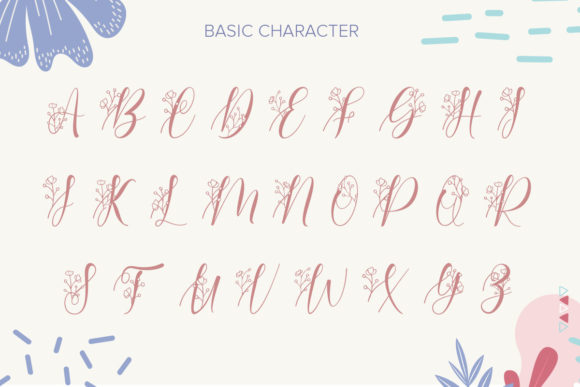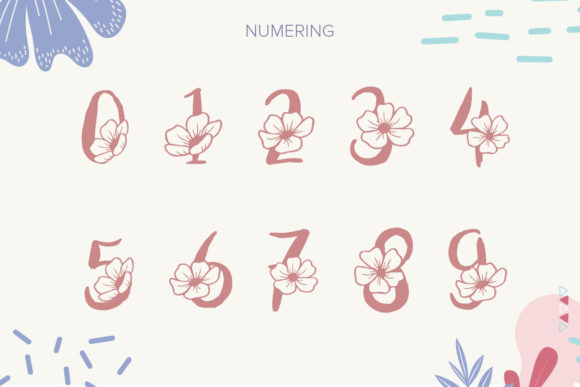
Introduction to Laurence Monogram Font
Have you ever stumbled upon a beautiful font while working on a creative project and felt like it was meant to be? For designers, this moment of serendipity is a treasure trove of inspiration. It’s when the perfect combination of style, elegance, and whimsy comes together to elevate our designs to the next level. For me, that moment came when I discovered the enchanting Laurence Monogram Font.
This sweet decorative font is more than just a pretty face – it’s a design resource that adds a touch of authenticity to any project. With its lovely flower ornament and high-quality design, it’s perfect for creating gorgeous wedding invitations, beautiful stationery art, eye-catching social media posts, and cute greeting cards. The best part? You can even use it with a transparent background to make your designs truly pop.
Whether you’re a seasoned designer or just starting out, the Laurence Monogram Font is a valuable addition to your design toolkit. Its free download makes it easily accessible, and its high-quality design ensures that your projects will always look their best. So why not fall in love with the Laurence Monogram Font today and see where your creativity takes you?
Key Features of Laurence Monogram Font
- High-quality design resource ideal for creative projects and personal use.
- Comes with a transparent background, allowing for easy customization and seamless integration into various design elements.
- Designed with a unique, elegant style that adds a touch of sophistication to any design project.
- Perfect for designers looking for a distinctive, high-quality font to elevate their creative projects.
Honest Review: Laurence Monogram Font
I recently had the chance to work with the Laurence Monogram Font for a creative project, and I’m excited to share my honest review with you.
What works well: ✨ The Laurence Monogram Font is a high-quality design resource that’s perfect for adding a touch of elegance to any project. The font is well-designed, with clean lines and a sophisticated feel that’s sure to impress. The free download is a major plus, making it accessible to designers of all levels.
Some of my favorite features include:
- ✨ High-quality design that’s perfect for commercial use
- ✨ Transparent background makes it easy to customize
- ✨ Free download makes it an excellent value for designers
Limitations: ⚠️ While the Laurence Monogram Font is a solid choice for many projects, it may not be the best option for projects that require a lot of customization or complex typography. Additionally, the font may not be suitable for use on certain platforms or in specific contexts.
Overall impression: I was pleasantly surprised by the Laurence Monogram Font, and I think it’s a great addition to any designer’s toolkit. With its high-quality design and transparent background, it’s perfect for a wide range of creative projects. Just be aware of its limitations, and you’ll be well on your way to creating stunning designs with this font.
Laurence Monogram Font
In Adobe Photoshop or Illustrator, you can use the Laurence Monogram Font by creating a new document and selecting the font from the font library. You can then use the font to create high-quality designs, such as posters or business cards. The font’s transparent background feature makes it easy to combine with other design elements.
You can also use the Laurence Monogram Font in PowerPoint or Word to create presentations or documents with a professional touch. Simply select the font from the font library and customize the font size, color, and style to fit your needs. This font is a great design resource for anyone looking to add a unique touch to their presentations or documents.
To get the most out of the Laurence Monogram Font, be sure to experiment with different font sizes, colors, and styles to create a unique look. You can also combine the font with other design elements, such as images or graphics, to create a visually appealing design.
The Laurence Monogram Font is ideal for a variety of creative projects, including logos, branding materials, posters, business cards, presentations, and documents. It’s also a great choice for anyone looking for a high-quality, free download font that can add a unique touch to their designs.